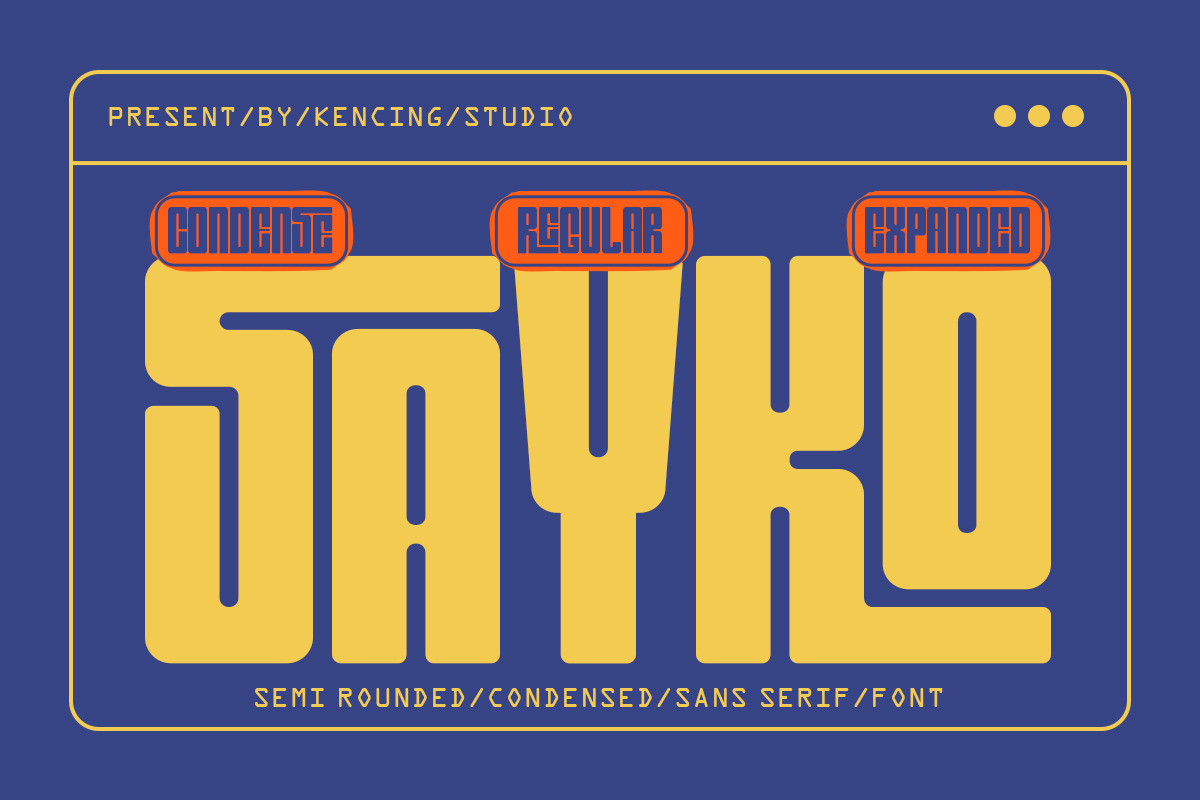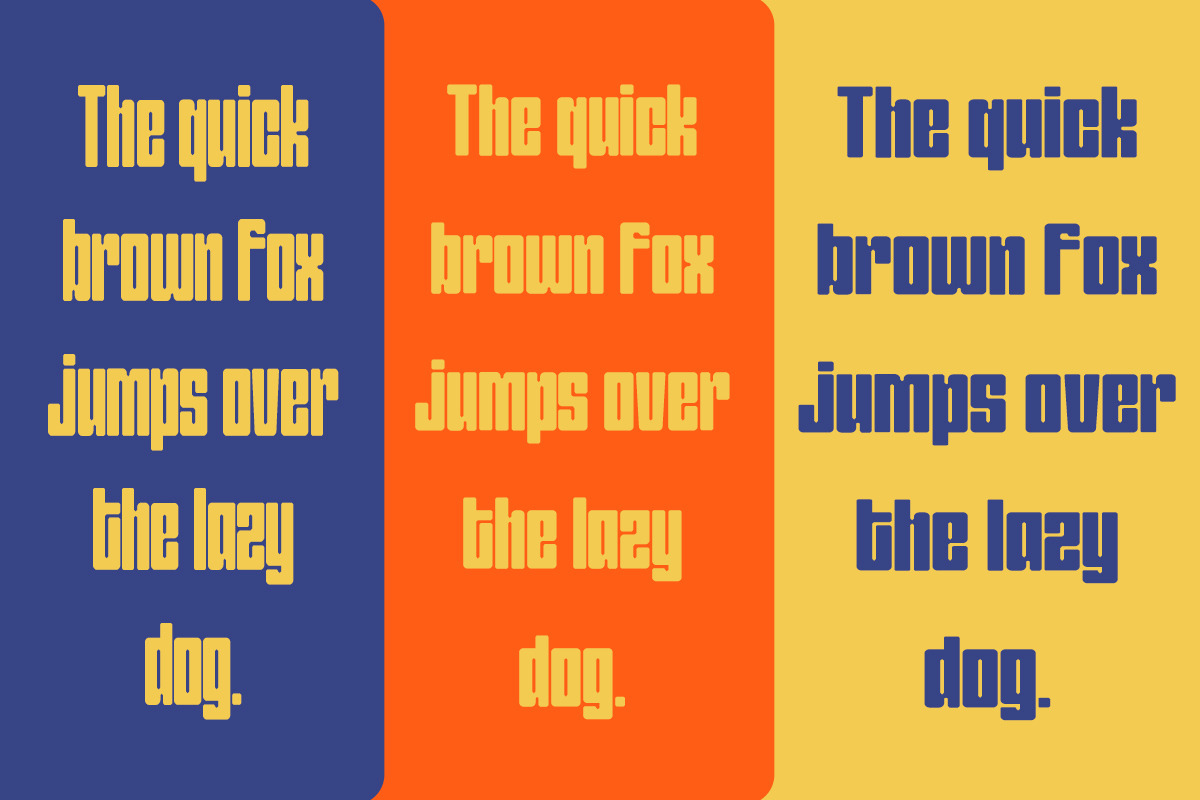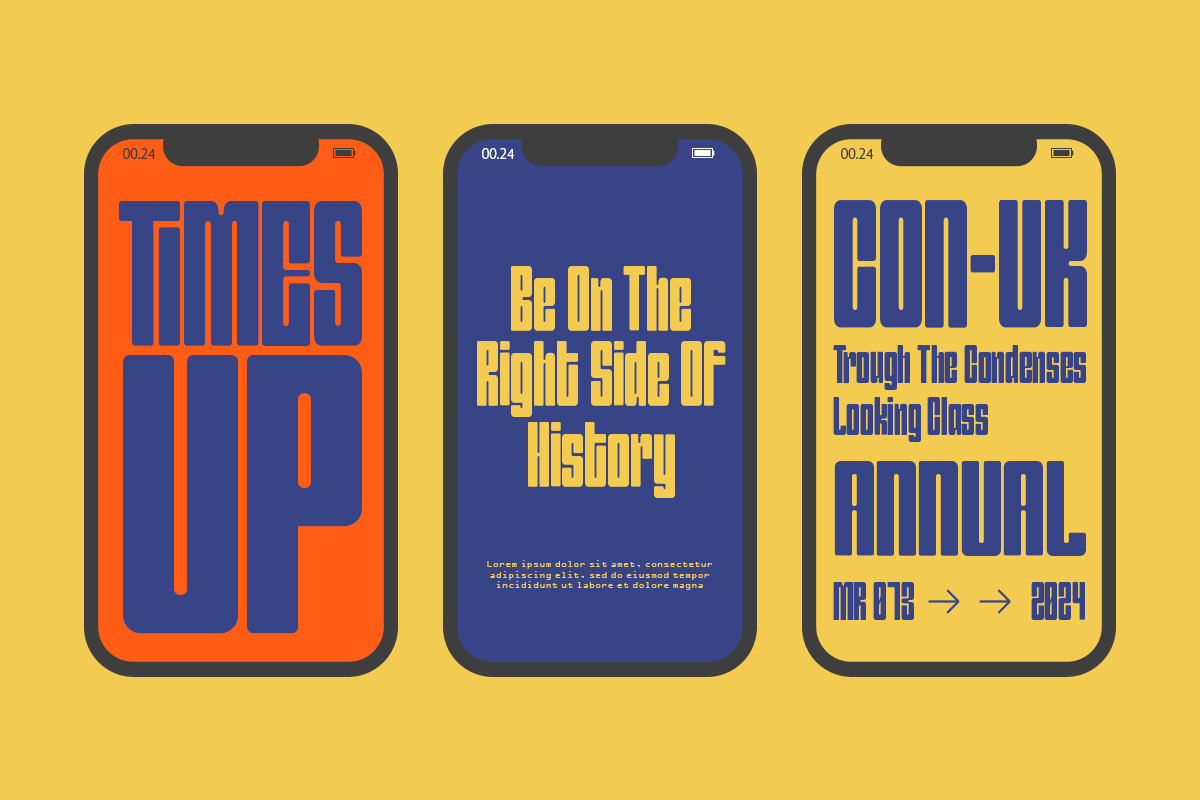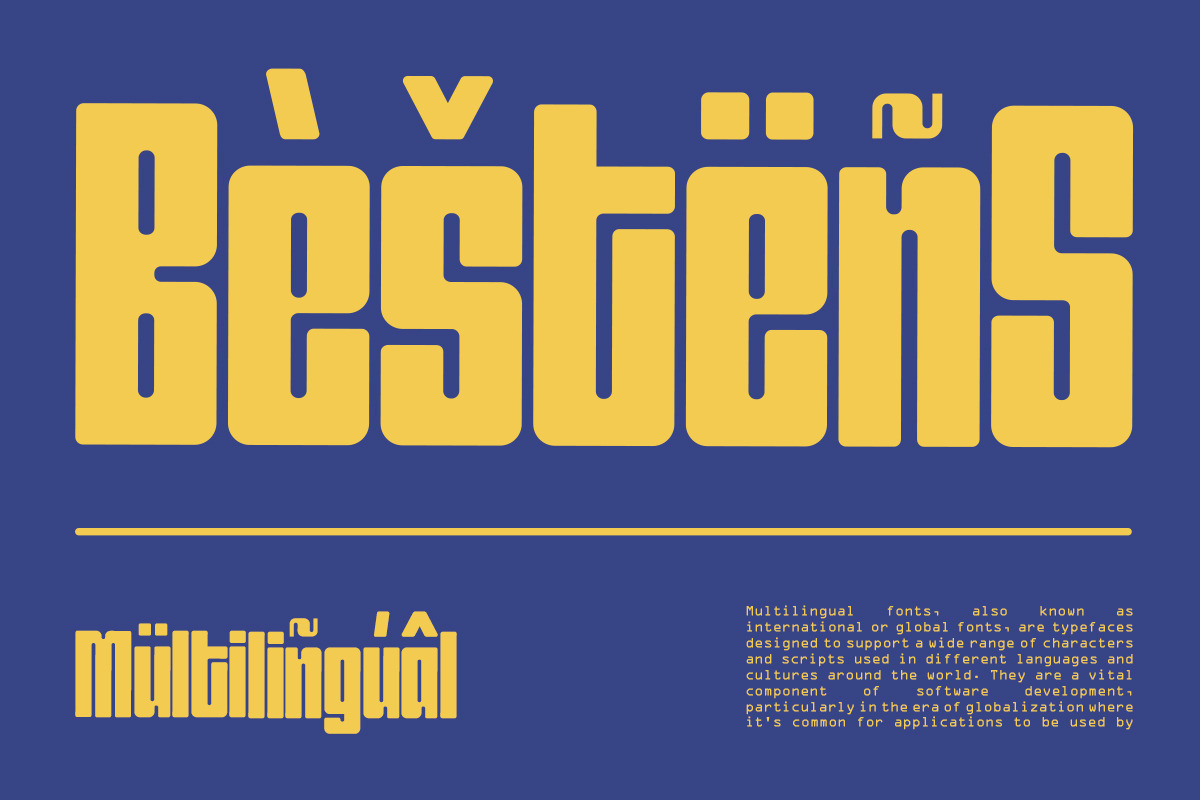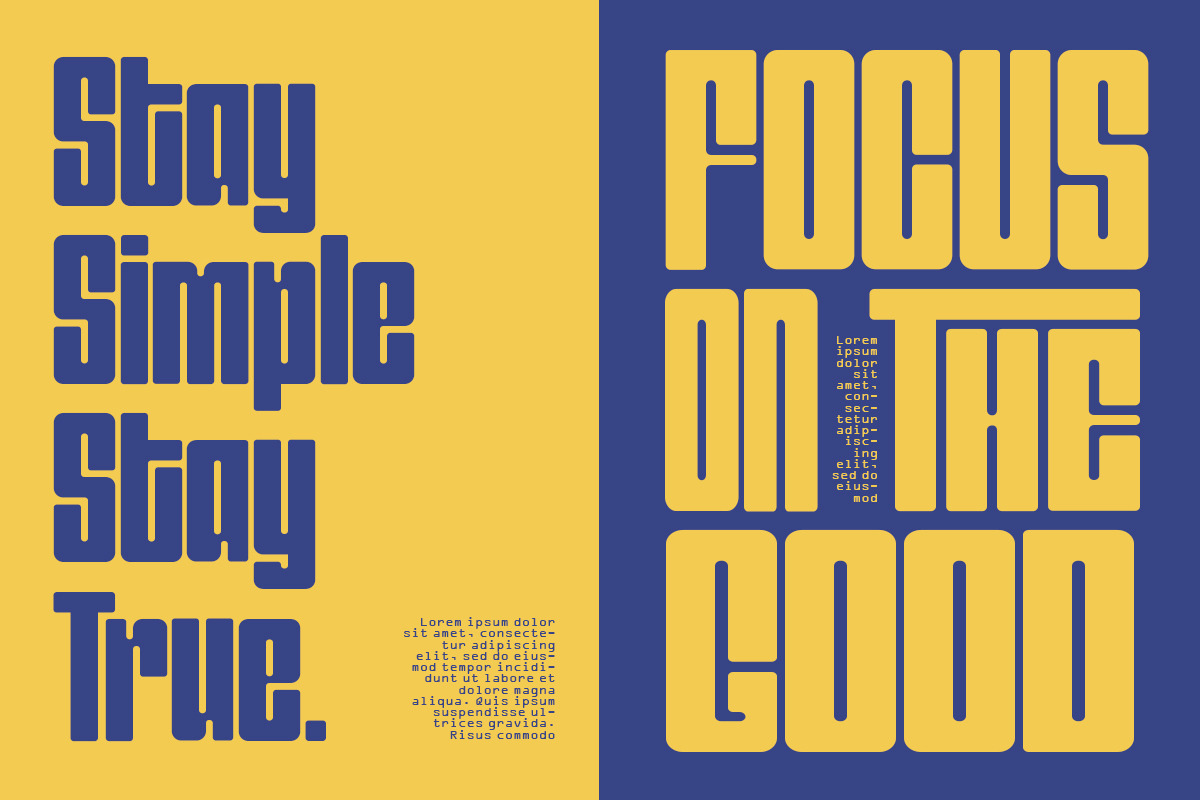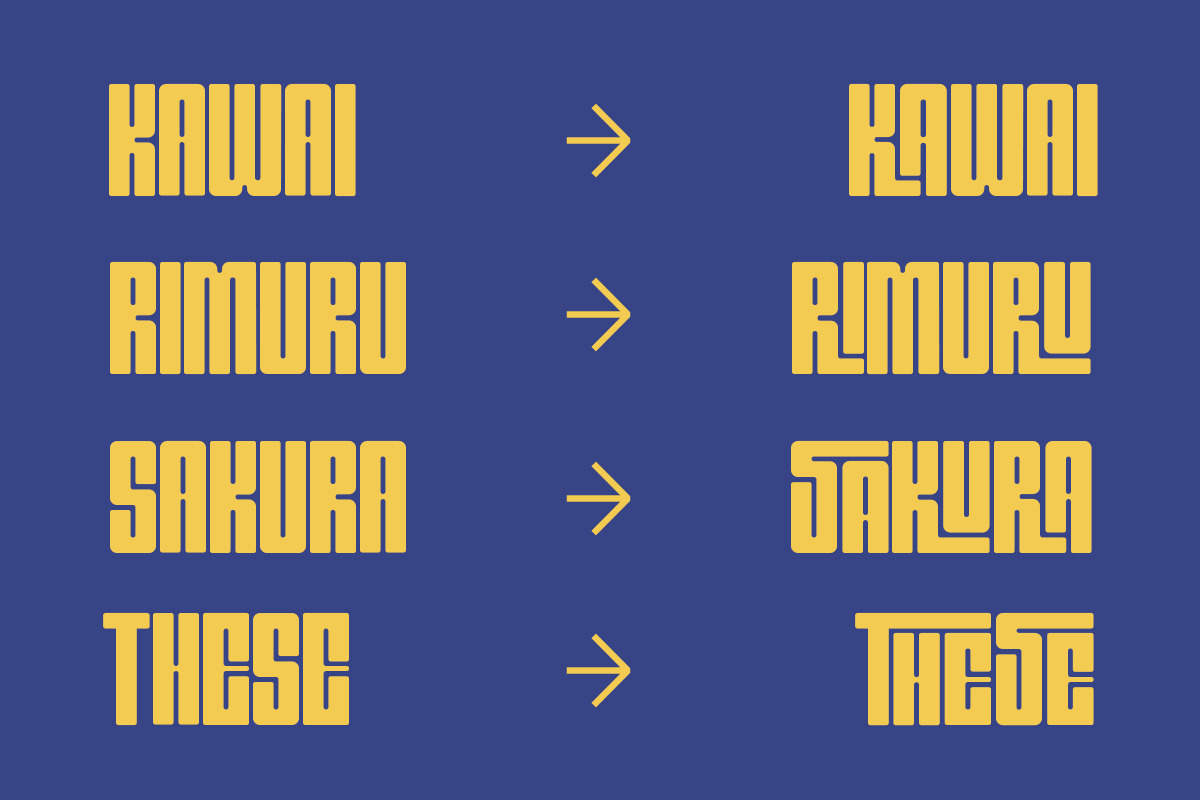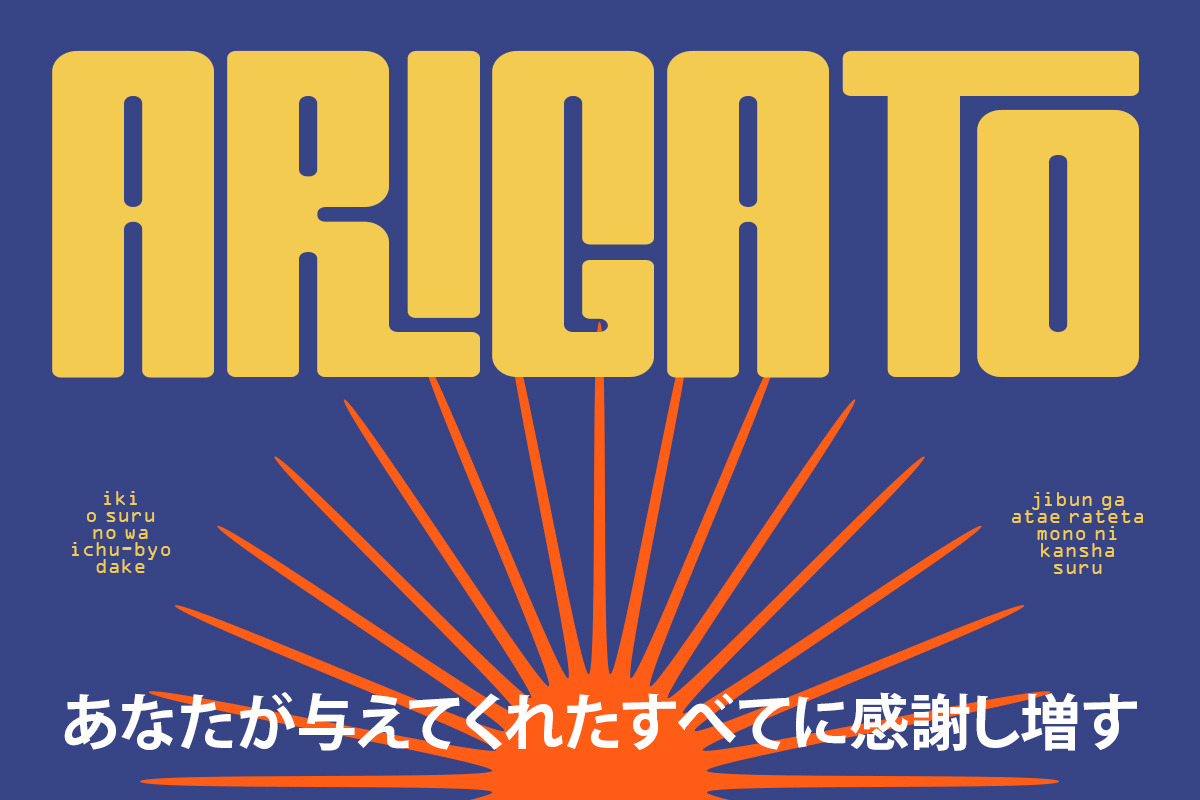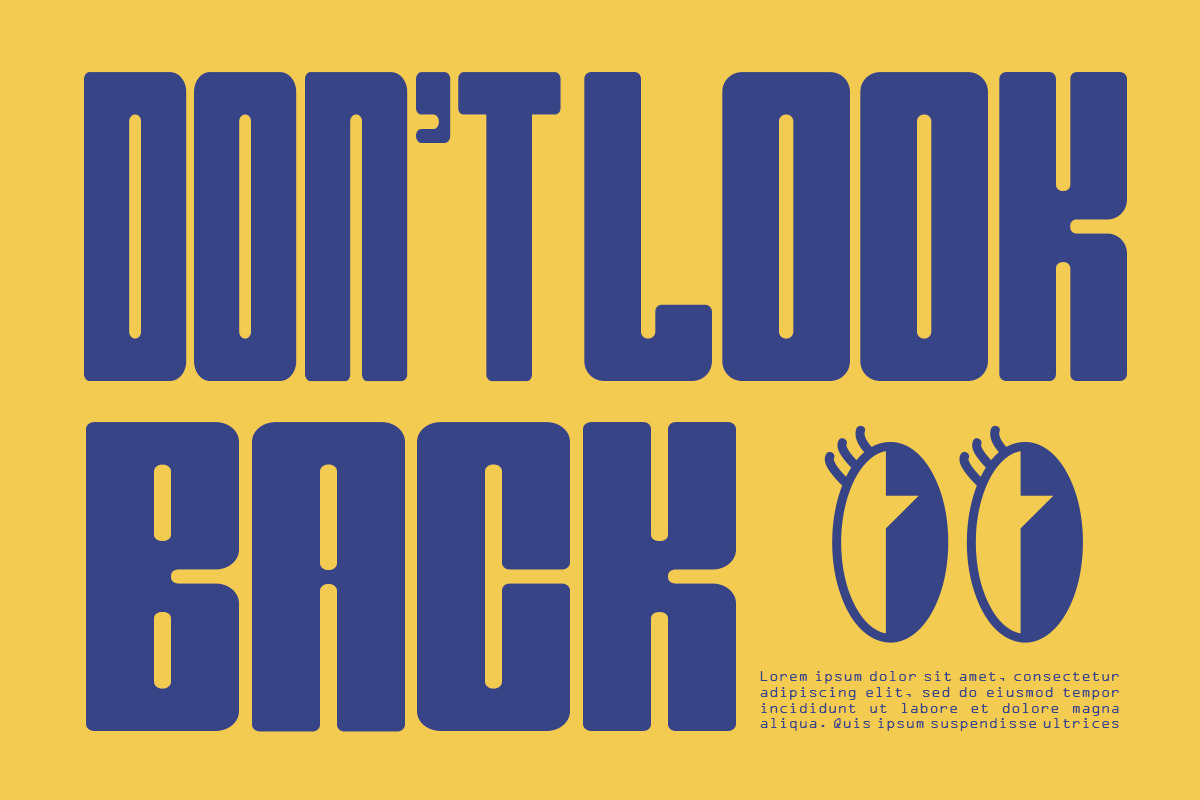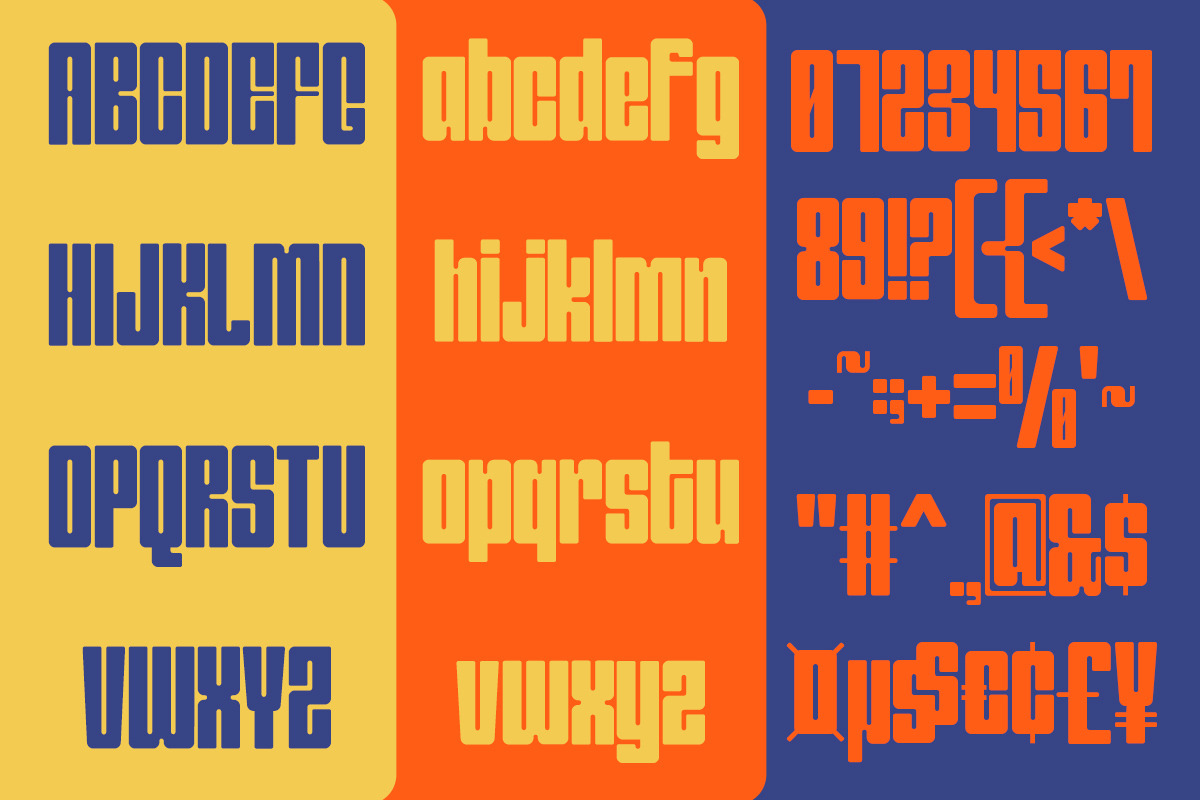
Sayko - Squary and Chunky Font
Sayko a squary and chunky typeface with a touch of unique retro style! With Sayko, you can you’re your project even more fun. A type of font with it’s bold and unique shaped font, will make your design catches their eyes. This typeface is a perfect for an invitation, posters, logo, and many more! Get Sayko to make your design looks lit! Lithi font will also include some features :